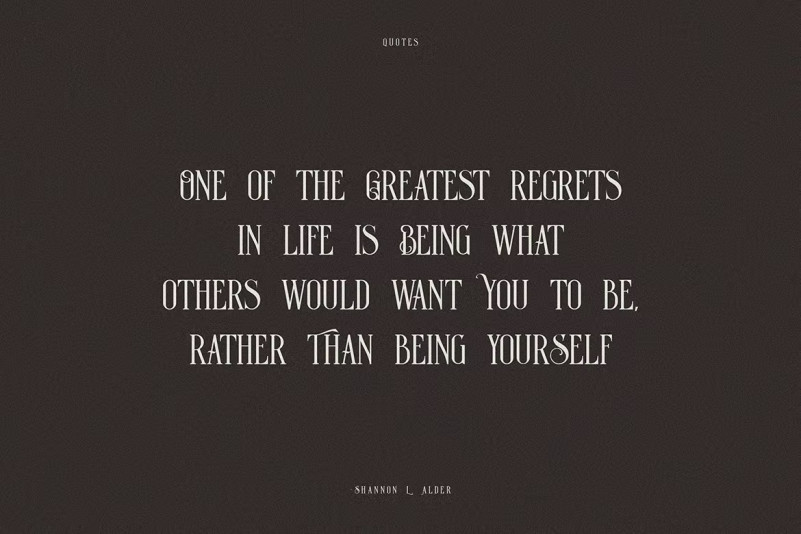
Dark Luna Font
Hello Everyone, introduce our new product, Dark Luna Vintage Font a condensed and elegant serif font. Perfect for your new logo or branding project.